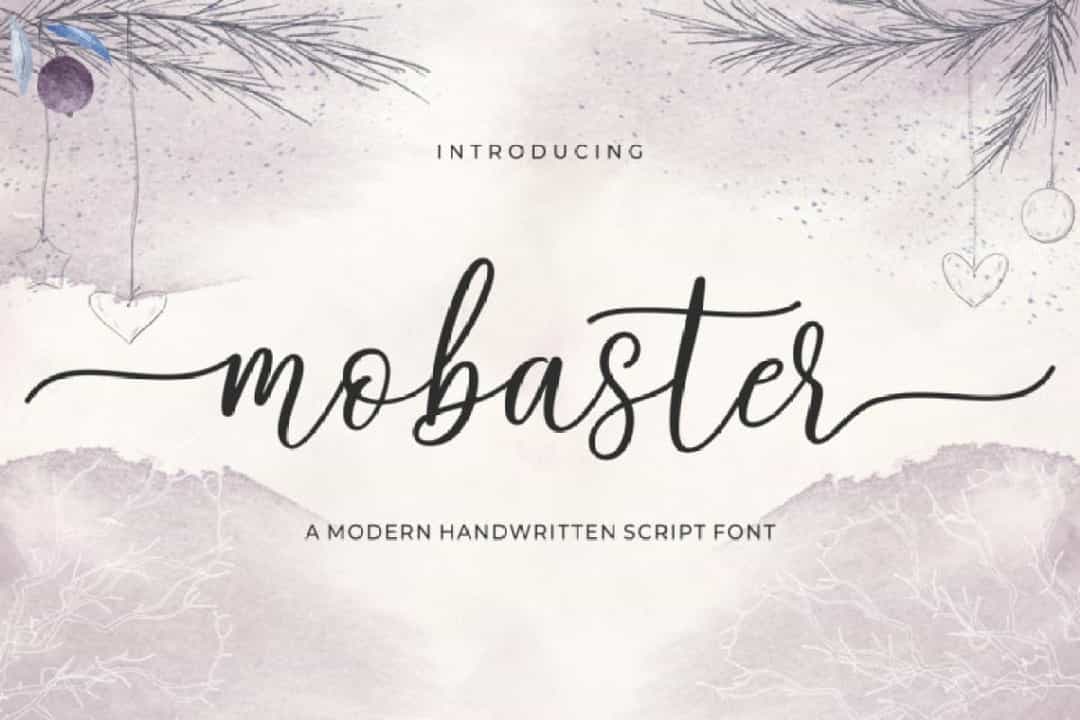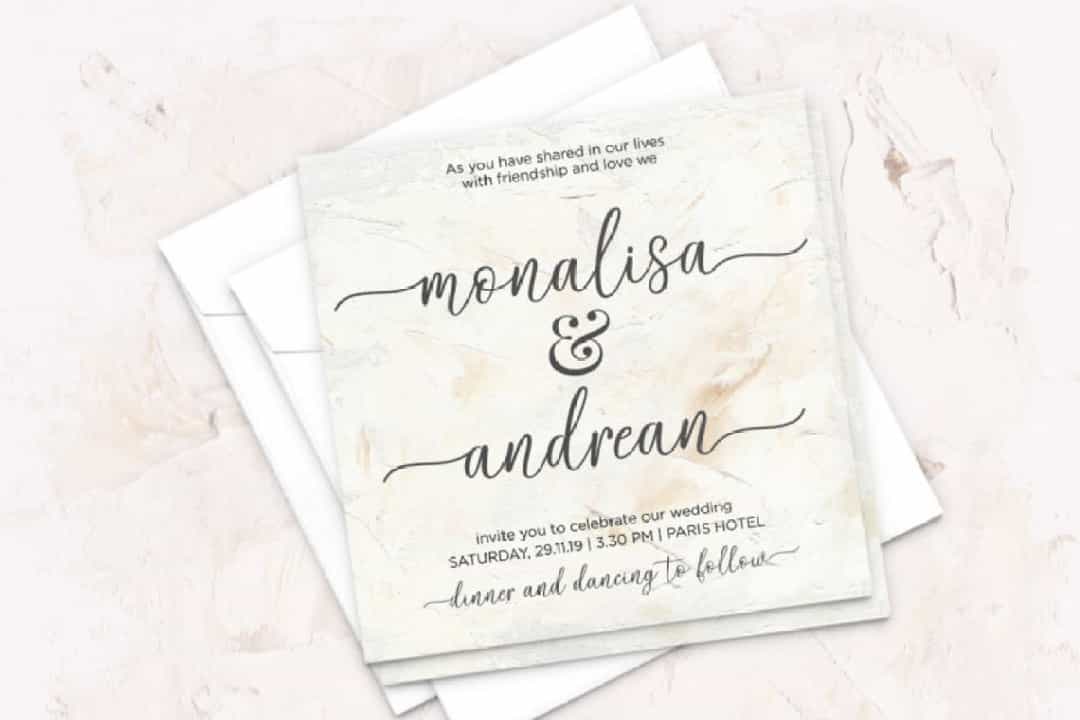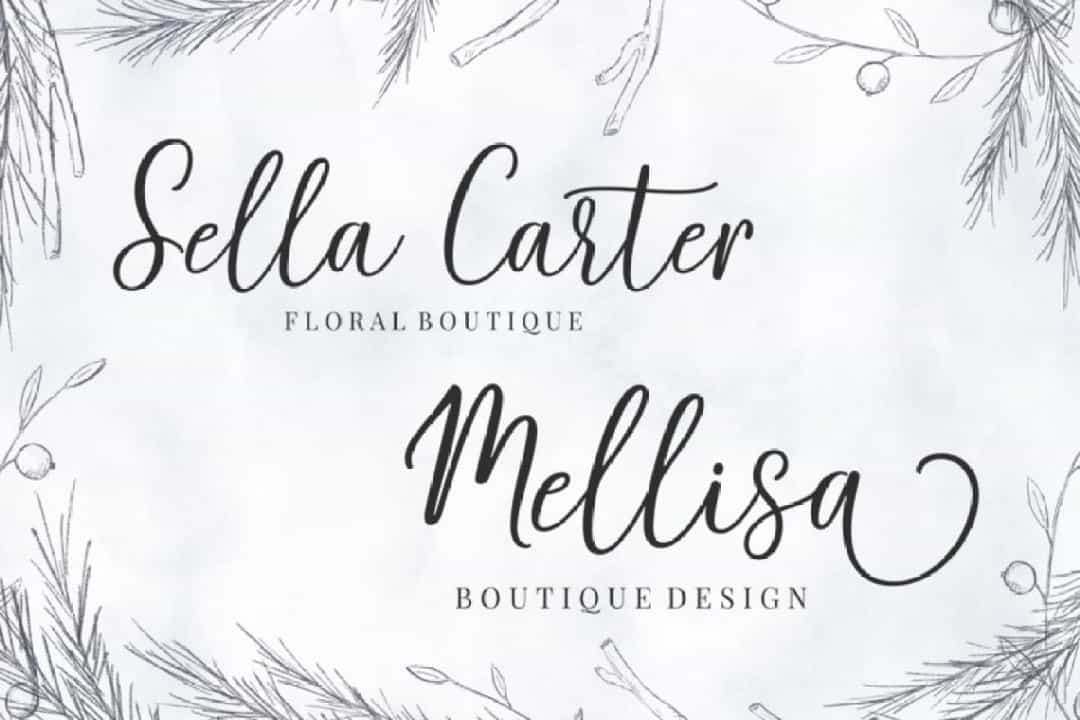
Mobaster is a clean and fresh font that belongs to the script category, including handwriting, embellished letters, and dancing bases! It is ideal for use in blog headers, branding a wedding, t-shirt design social media branding, brand designs, stationary, advertisements for clothing, book covers, cards, invitations, and handwritten quotes and much more.